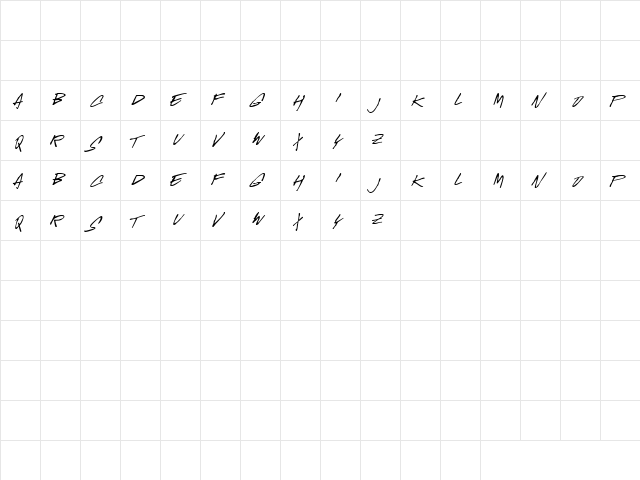
McGurr Script Regular
Design Context for McGurr Script Typeface
McGurr Script flows with the natural rhythm of handwritten lettering, making it ideal for designs that call for warmth and personal expression.
Font Pairing: Combine McGurr Script with a simple geometric sans for maximum contrast — the tension between flowing curves and clean structure is a classic typographic pairing.
Pro Tip: Use McGurr Script for short runs of text — names, titles, or taglines. Extended body copy in script faces tires the eye quickly.